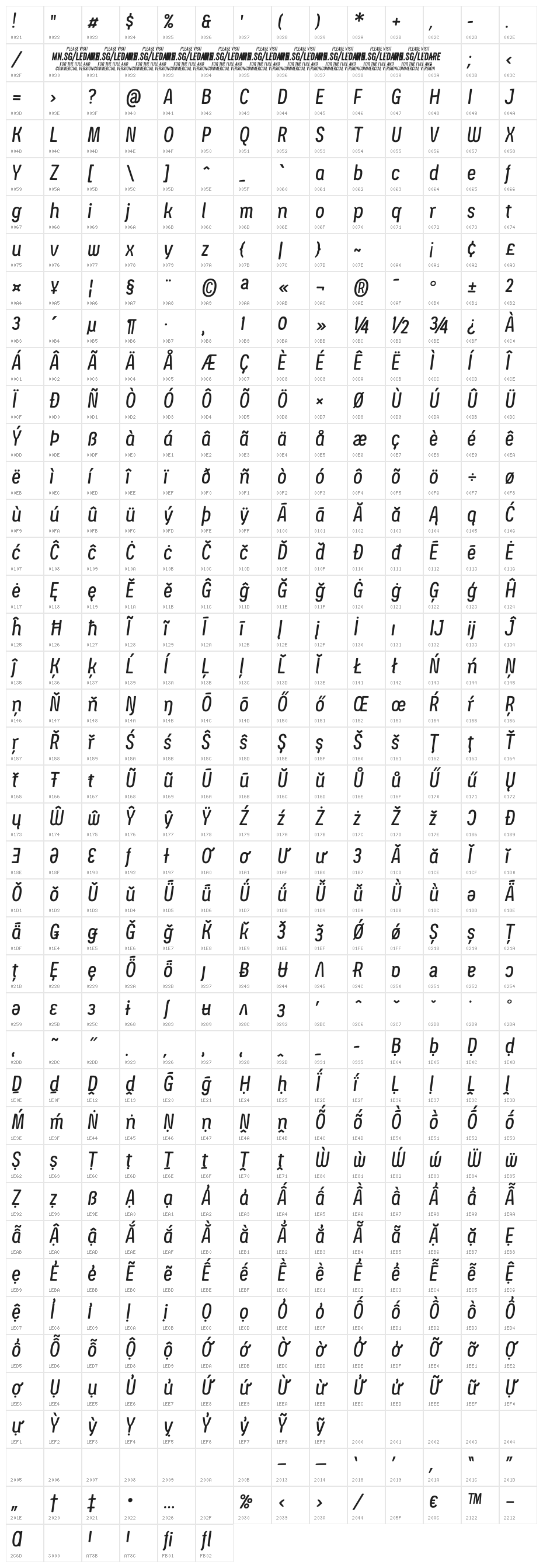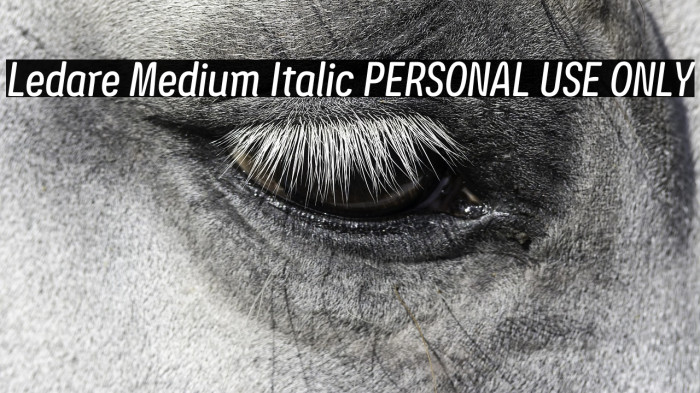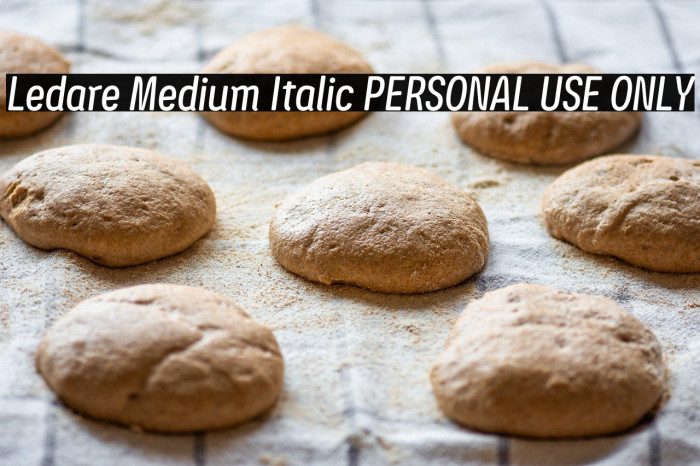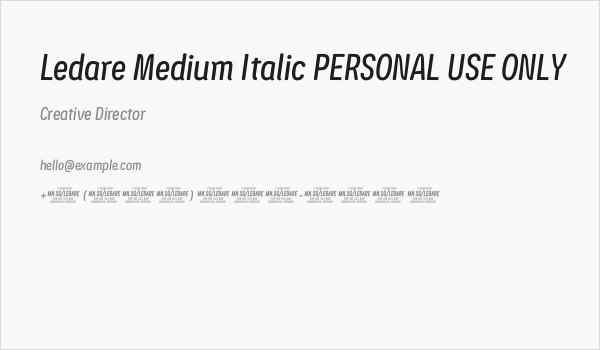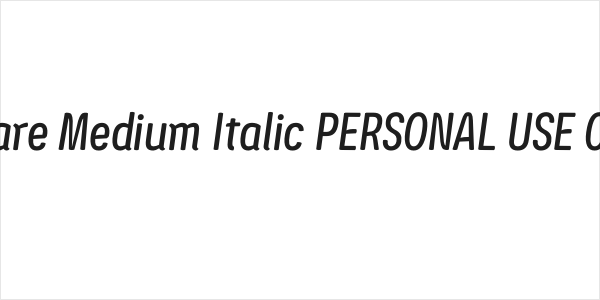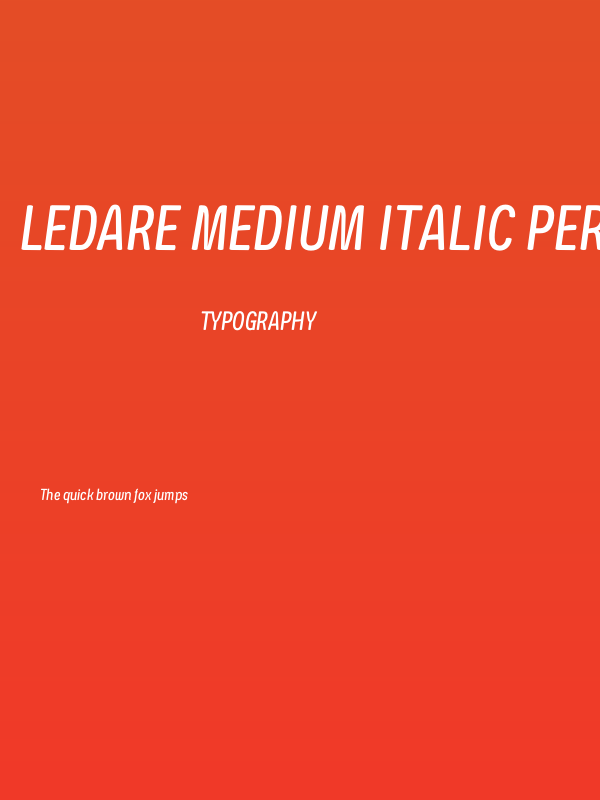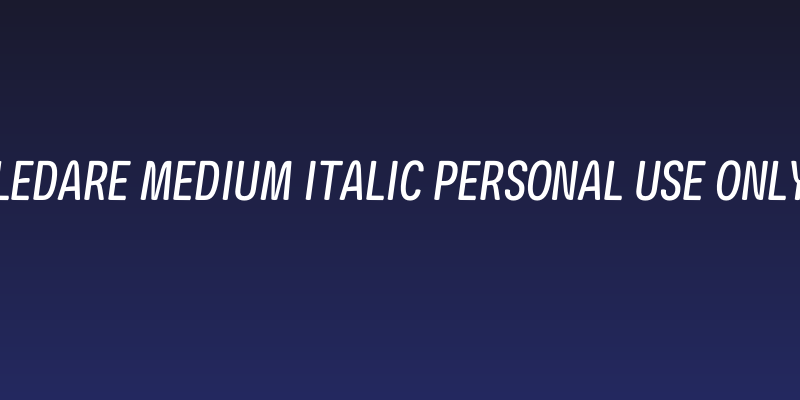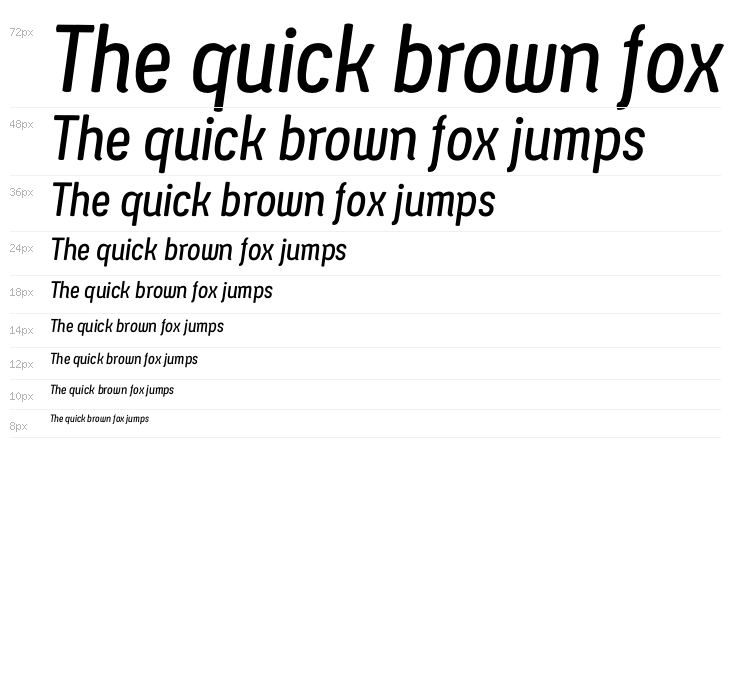
Ledare Medium Italic PERSONAL USE ONLY Font
Ledare Medium Italic PERSONAL USE ONLY Description
This font features a sleek and modern design with a slightly italicized style, giving it a dynamic and forward-leaning appearance. The characters are well-proportioned with a medium weight, providing a balanced look that is both readable and stylish. The strokes are consistent, with a medium contrast that adds a touch of elegance without compromising legibility. The overall design is clean and contemporary, making it suitable for a variety of applications. The character spacing is normal, ensuring that each letter is distinct yet cohesive within text. This font includes a full set of uppercase and lowercase letters, numbers, and a variety of special characters, making it versatile for different uses.
| Proposed Projects | Ideal for branding, advertising, and editorial design projects where a modern and stylish look is desired. |